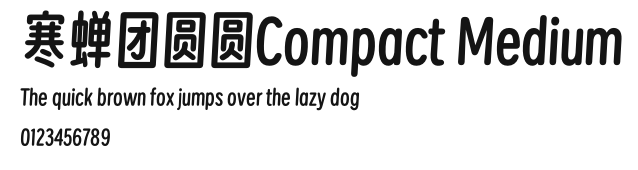
寒蝉团圆圆Compact Medium Preview
• Font Name: 寒蝉团圆圆Compact Medium
• Full Font Name: 寒蝉团圆圆Compact DemiBold
• Designer: 寒蝉字型
About 寒蝉团圆圆Compact Medium.otf
寒蝉团圆圆Compact Medium.otf is a modern, elegant sans-serif font designed for ultimate readability and visual harmony. Perfect for branding, headlines, web design, and print materials.